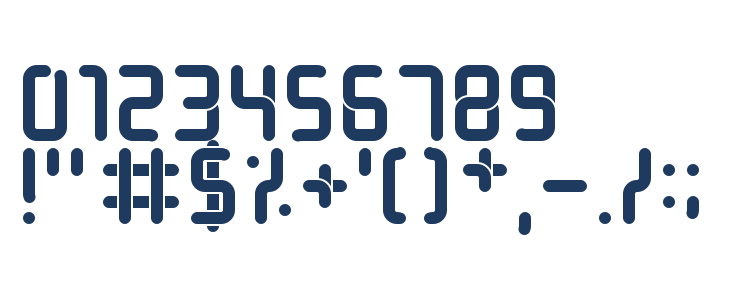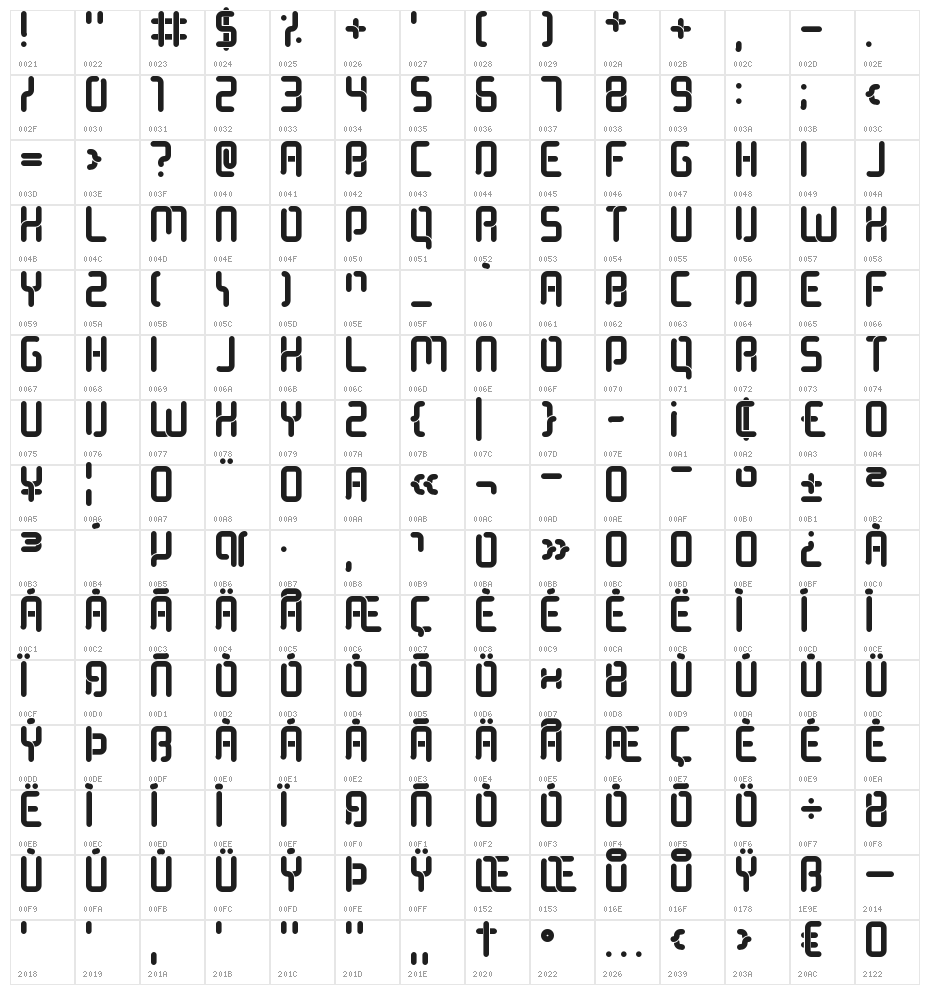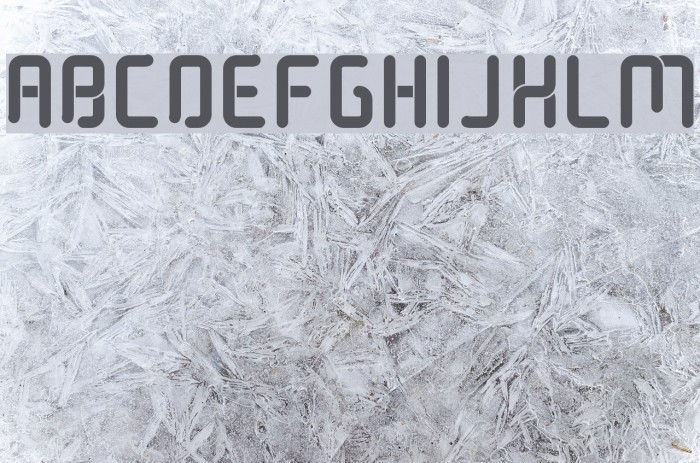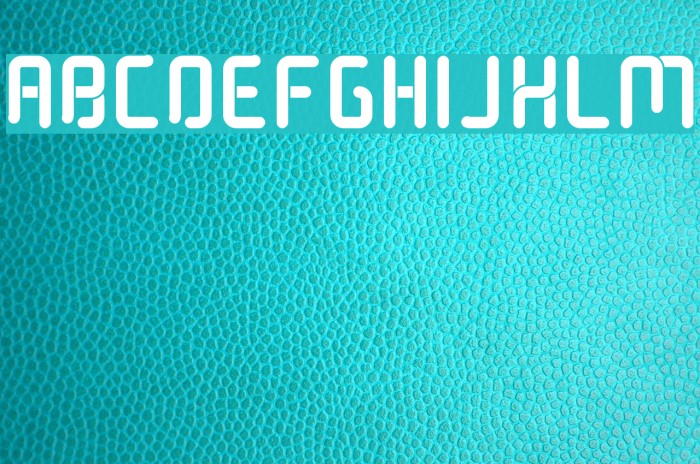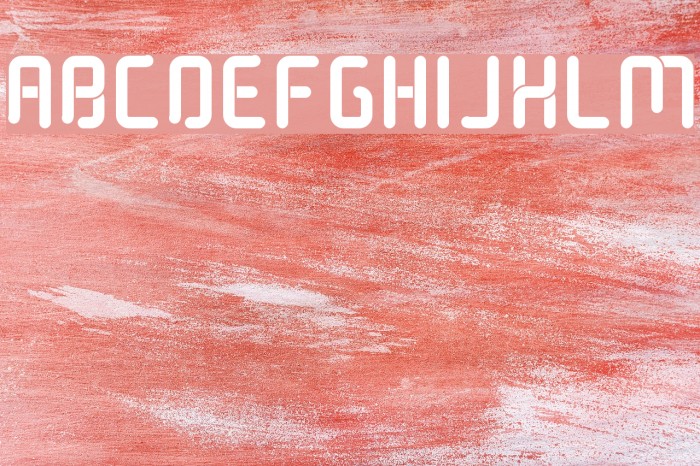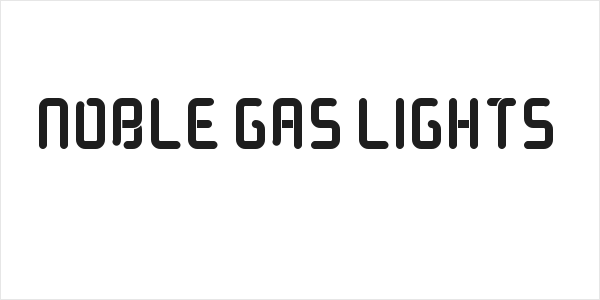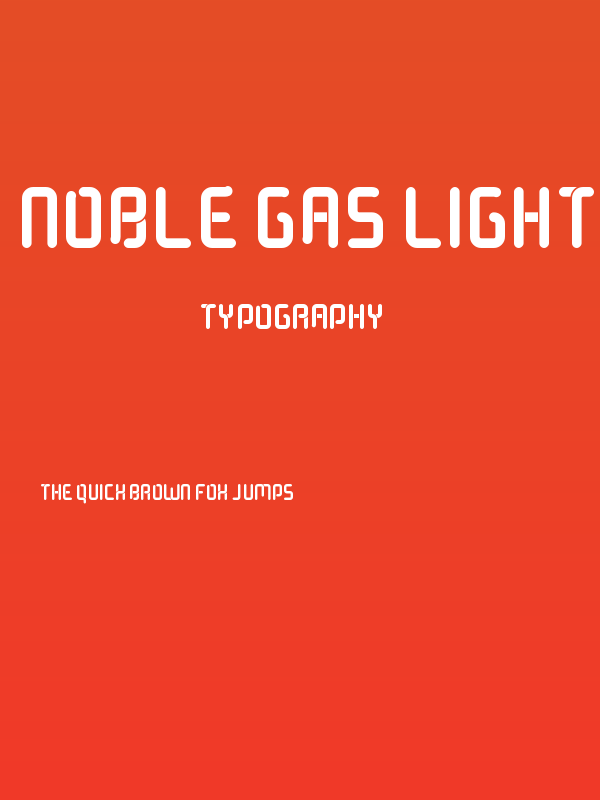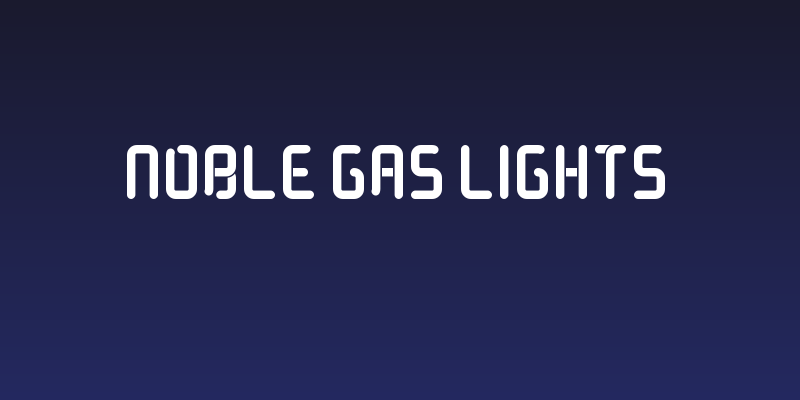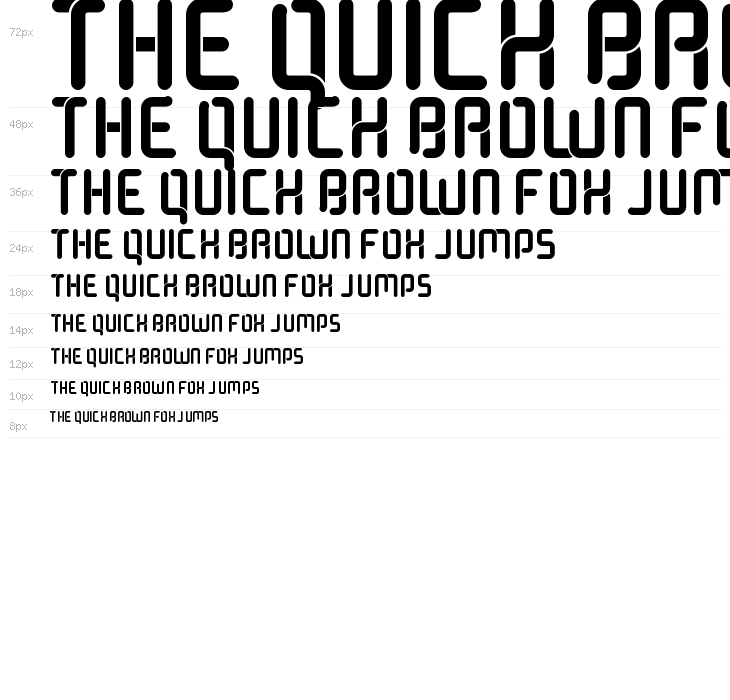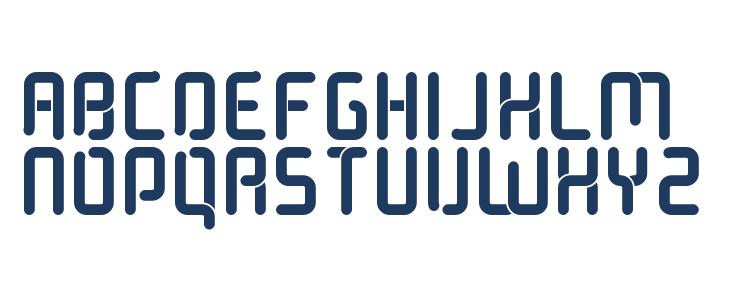
Noble Gas lights Font
Noble Gas lights Description
This font features a futuristic and geometric design with rounded edges and a consistent stroke width. The characters are bold and have a distinct, modern appearance that is both eye-catching and easy to read. The uppercase and lowercase letters maintain a uniform style, with the same width and height proportions, creating a cohesive look. The numbers and special characters follow the same design principles, ensuring a seamless integration with the alphabet. This font is ideal for digital displays, signage, and branding projects that require a modern and tech-savvy aesthetic.
| Use Case | Headlines, Logos, Digital displays |
| Proposed Projects | Ideal for digital displays, tech branding, signage, and modern advertising. |